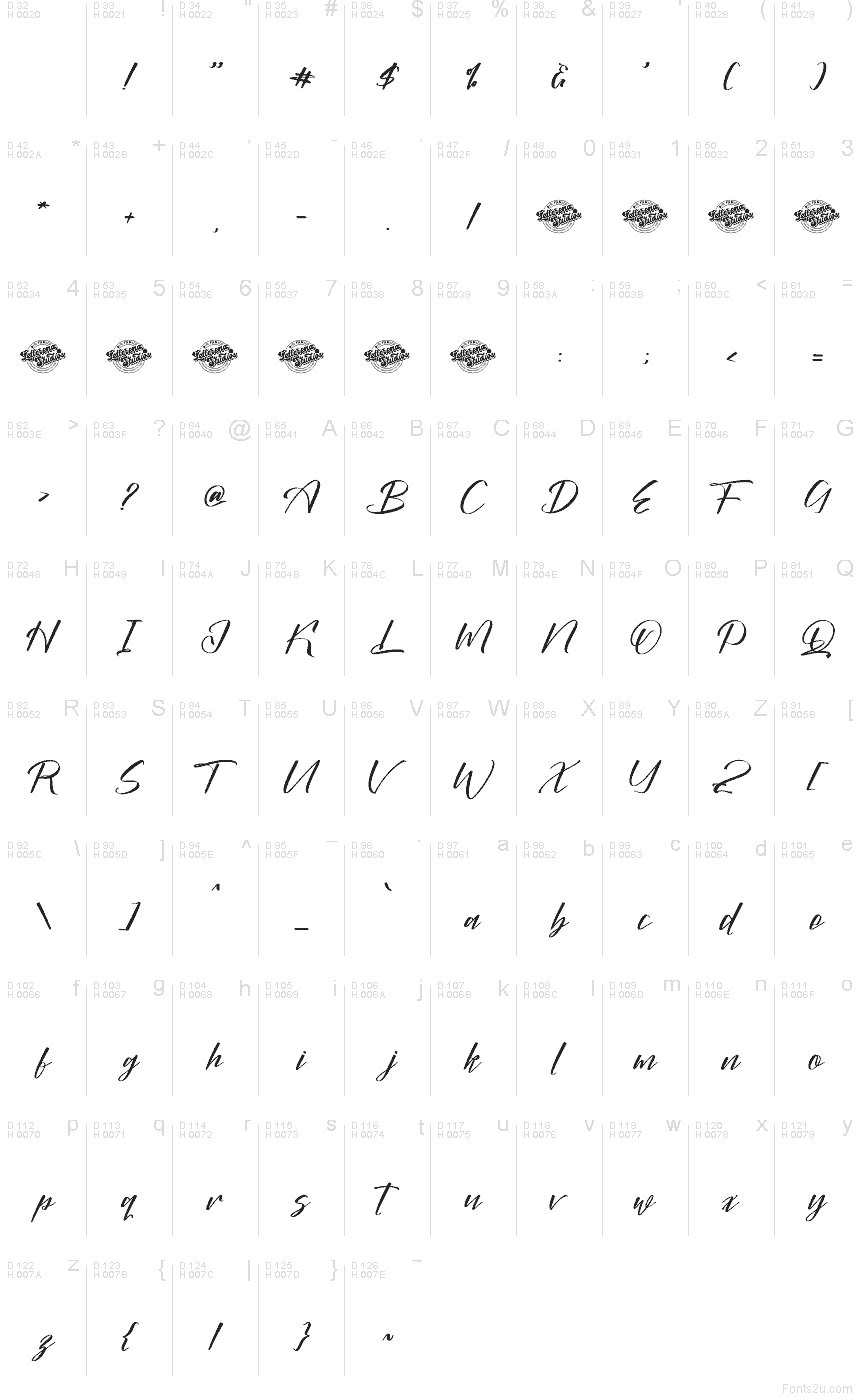
Bokeylan Qimghora DEMO VERSION
Bokeylan Qimghora font by Letterena Studios is a free handwritten script font with an inky, formal grace that feels like it was penned with a well-loved calligraphy brush. Tall, sweeping capitals flow into smooth, slightly textured strokes, giving each word a sense of movement and ceremony. The letters stay connected and consistent, so even longer phrases read as one elegant gesture rather than a jumble of curls.
Using Bokeylan Qimghora, you can bring refined warmth to wedding invitations, save-the-dates, boutique logos, packaging labels, quote graphics, and event signage. This free font shines when you give it room to breathe—set it larger for names or key phrases, then pair it with a simple, neutral sans serif for supporting text to keep the whole layout balanced and readable.